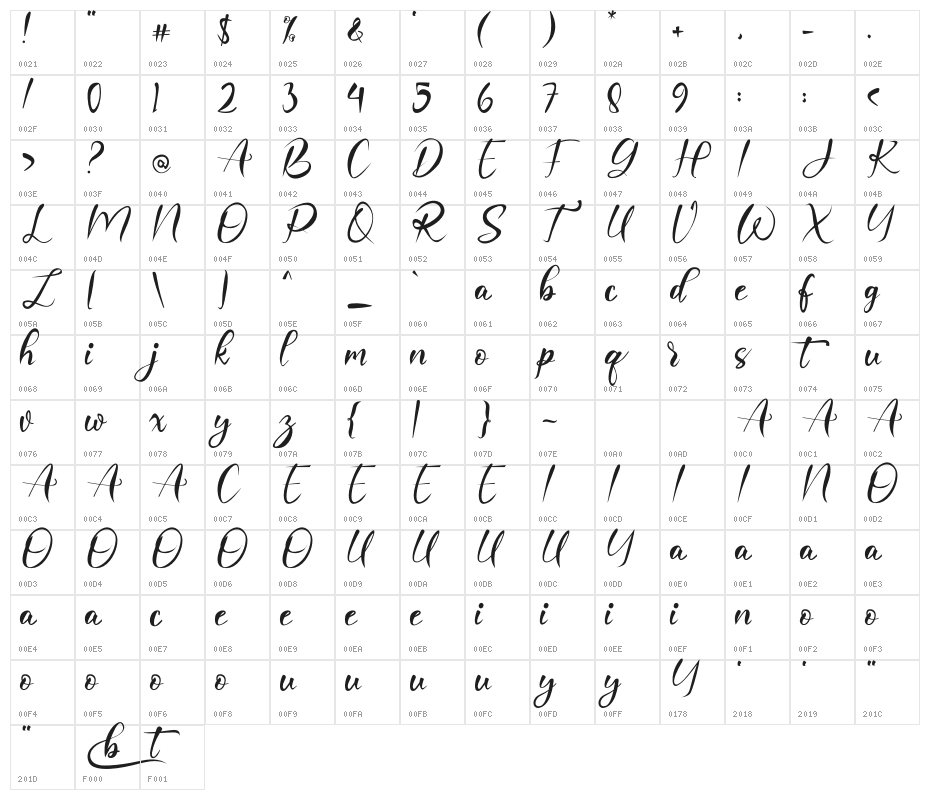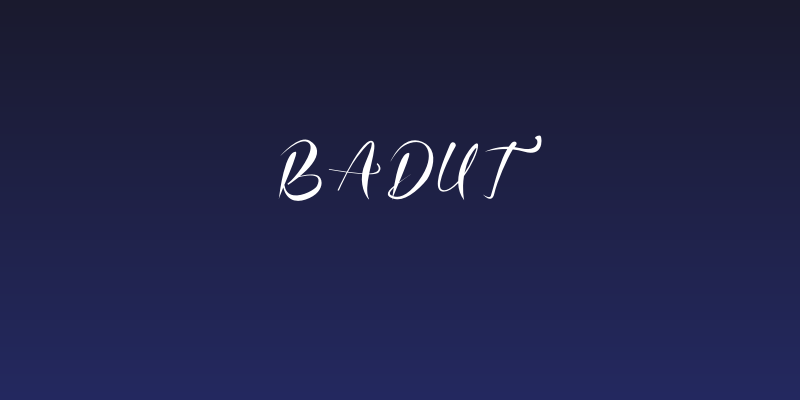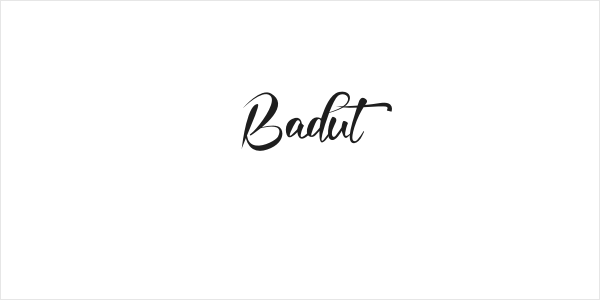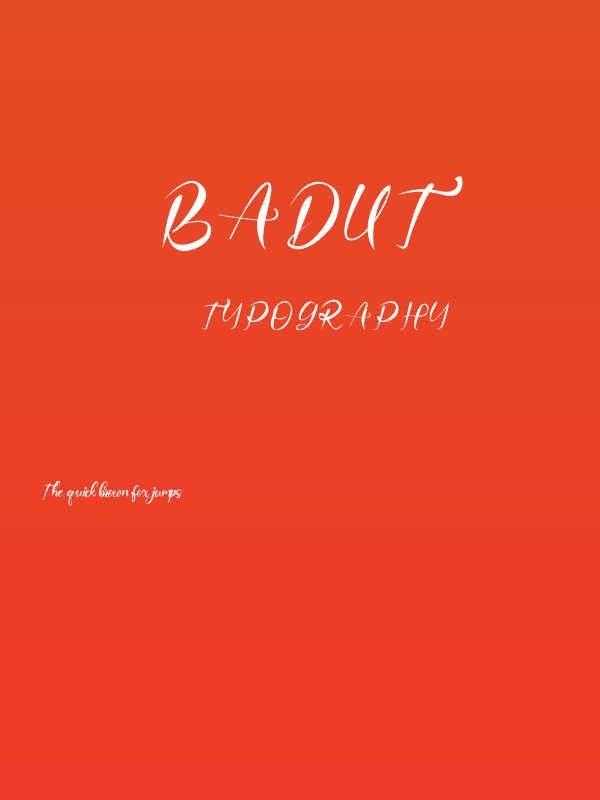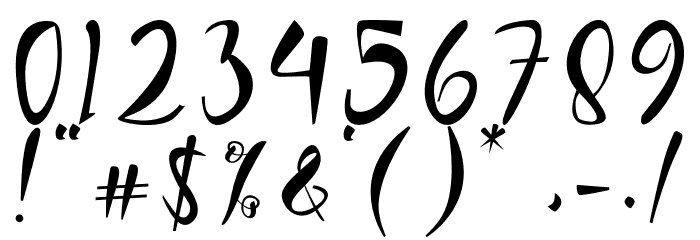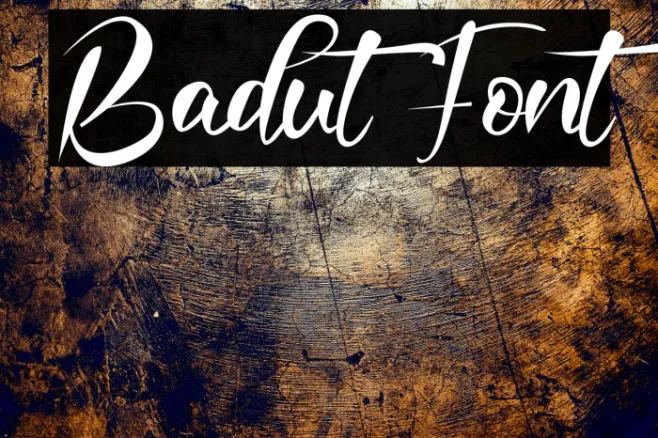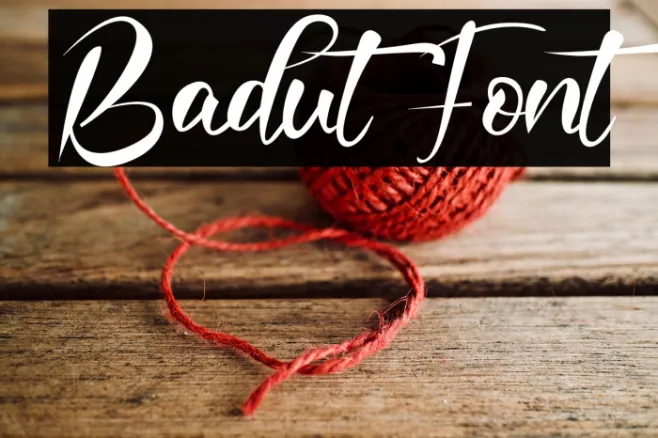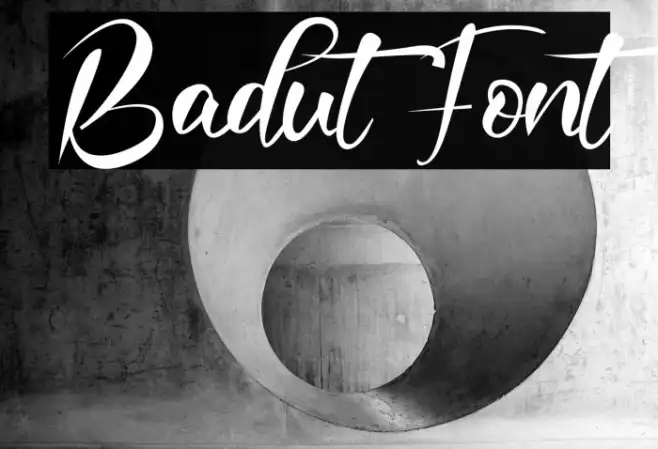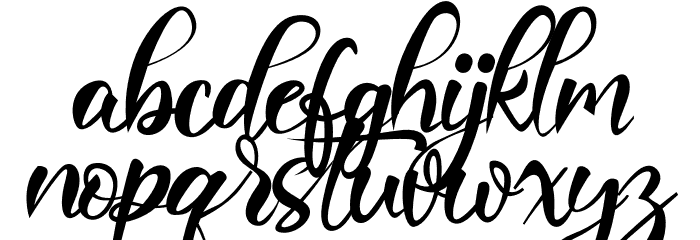
Badut Font
Badut Description
This font features a dynamic and fluid script style, characterized by its elegant, flowing lines and a sense of movement. The uppercase letters are tall and slender, with a slight slant that adds a touch of sophistication. The lowercase letters are more rounded and connected, creating a harmonious and cohesive look. The numerals are distinct and maintain the same fluidity, ensuring consistency throughout. Special characters are thoughtfully designed, complementing the overall aesthetic. This font exudes a sense of elegance and creativity, making it suitable for a variety of applications.